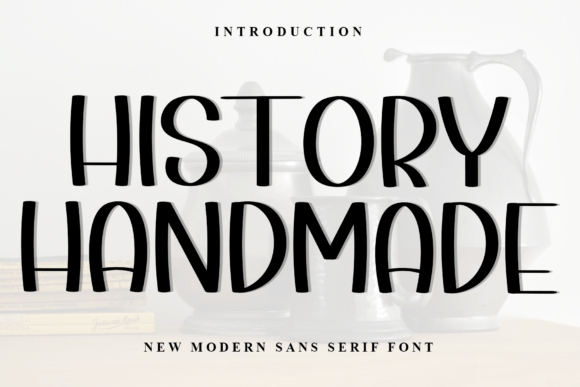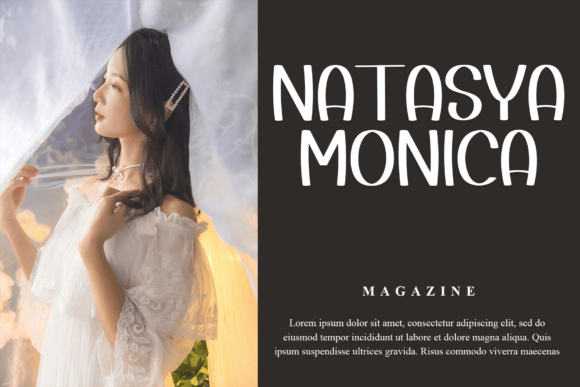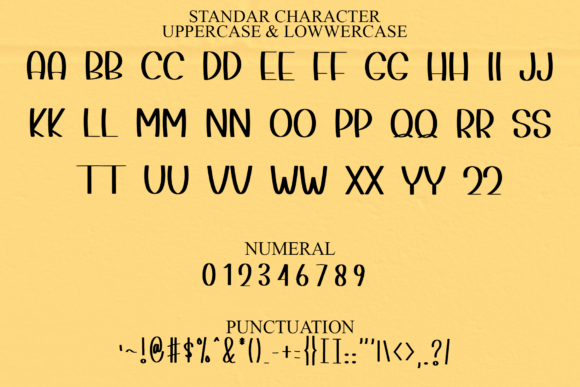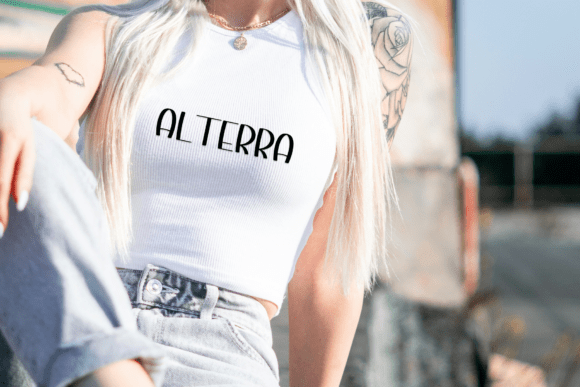
History Handmade Font: A Modern & Cute Sans Serif for Cricut
About the History Handmade Font
The wait is over! The incredible History Handmade Font is now available for your design toolkit. History Handmade is a festive and merry typeface that captures the spirit of the holiday season. With its decorative elements and whimsical flair, it adds a touch of enchantment to your designs. Perfect for greeting cards, gift tags, and holiday-themed projects, this font brings a cheerful and nostalgic ambiance to your words. Let your typography shine with the magic of Beautiful Font!
History Handmade’s playful, whimsical style shines in headlines, short text blocks on packaging, and festive promotional materials. It’s ideal for branding projects evoking a sense of nostalgia or handcrafted charm, such as artisanal food products or vintage-inspired boutiques. However, its decorative nature makes it unsuitable for body text or UI elements requiring high readability.
For optimal visual balance, pair History Handmade with a clean sans-serif like Open Sans for body copy or a more geometric sans-serif such as Futura for a modern contrast. A classic serif like Garamond could also provide elegant counterpoint, softening the font’s festive energy for a more refined look.
The overall personality is cheerful and nostalgic, conveying a sense of warmth and handcrafted quality. Avoid using it in contexts demanding seriousness or modern minimalism; its charm lies in its celebratory, slightly retro aesthetic.
History Handmade Font Usage Examples
History Handmade Font Example